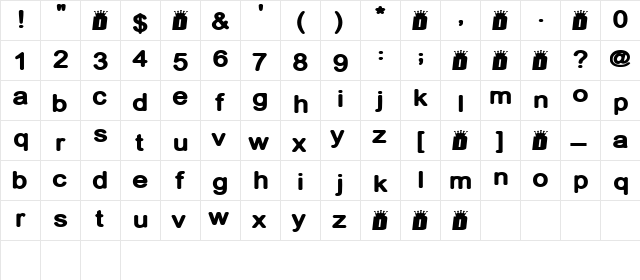
DeeDee Regular
Design Context for DeeDee Typeface
DeeDee takes a measured approach to typography — its balanced proportions and neutral character make it a reliable workhorse for both digital and print work.
Pro Tip: Use DeeDee in both headline and body roles to test its range before committing to a single application.